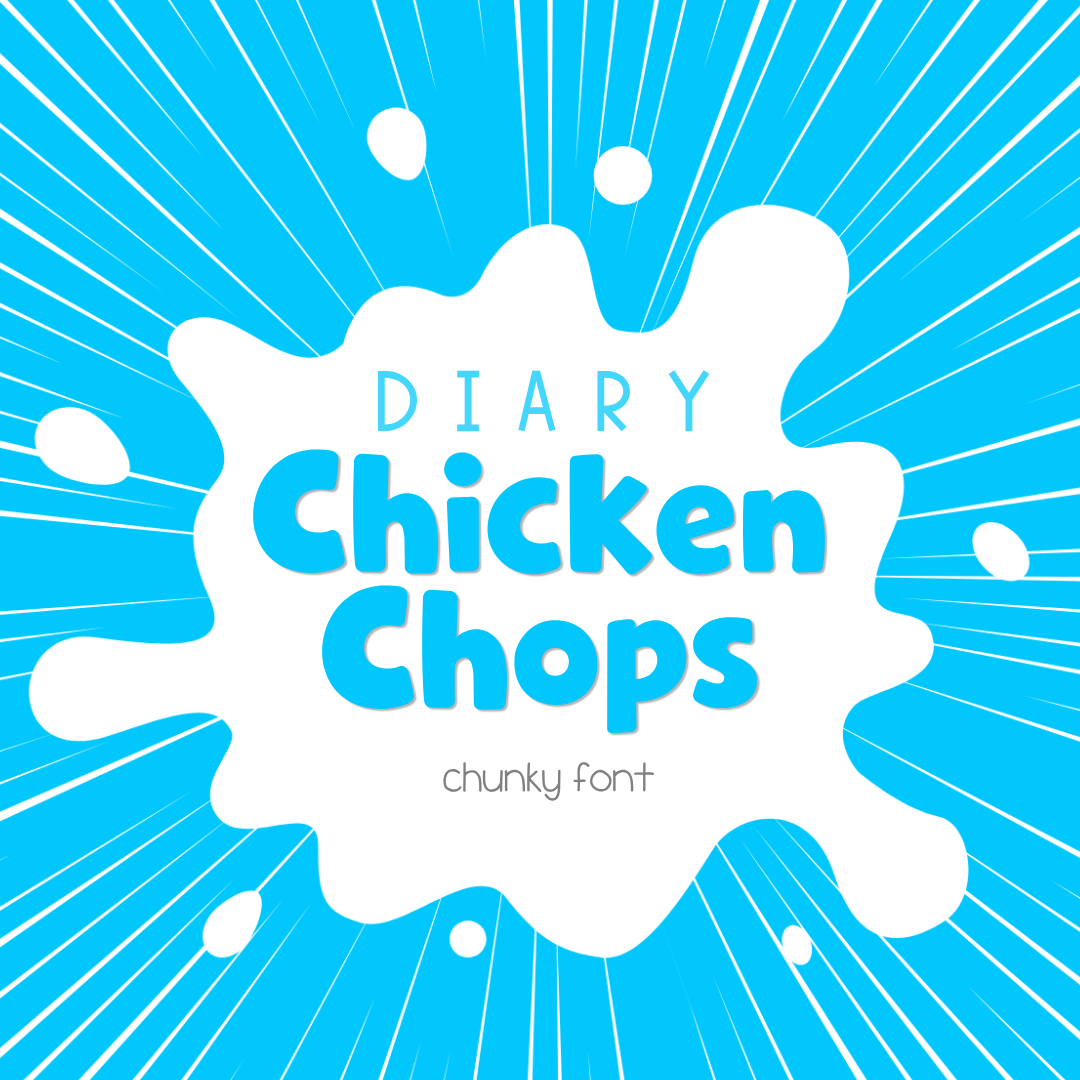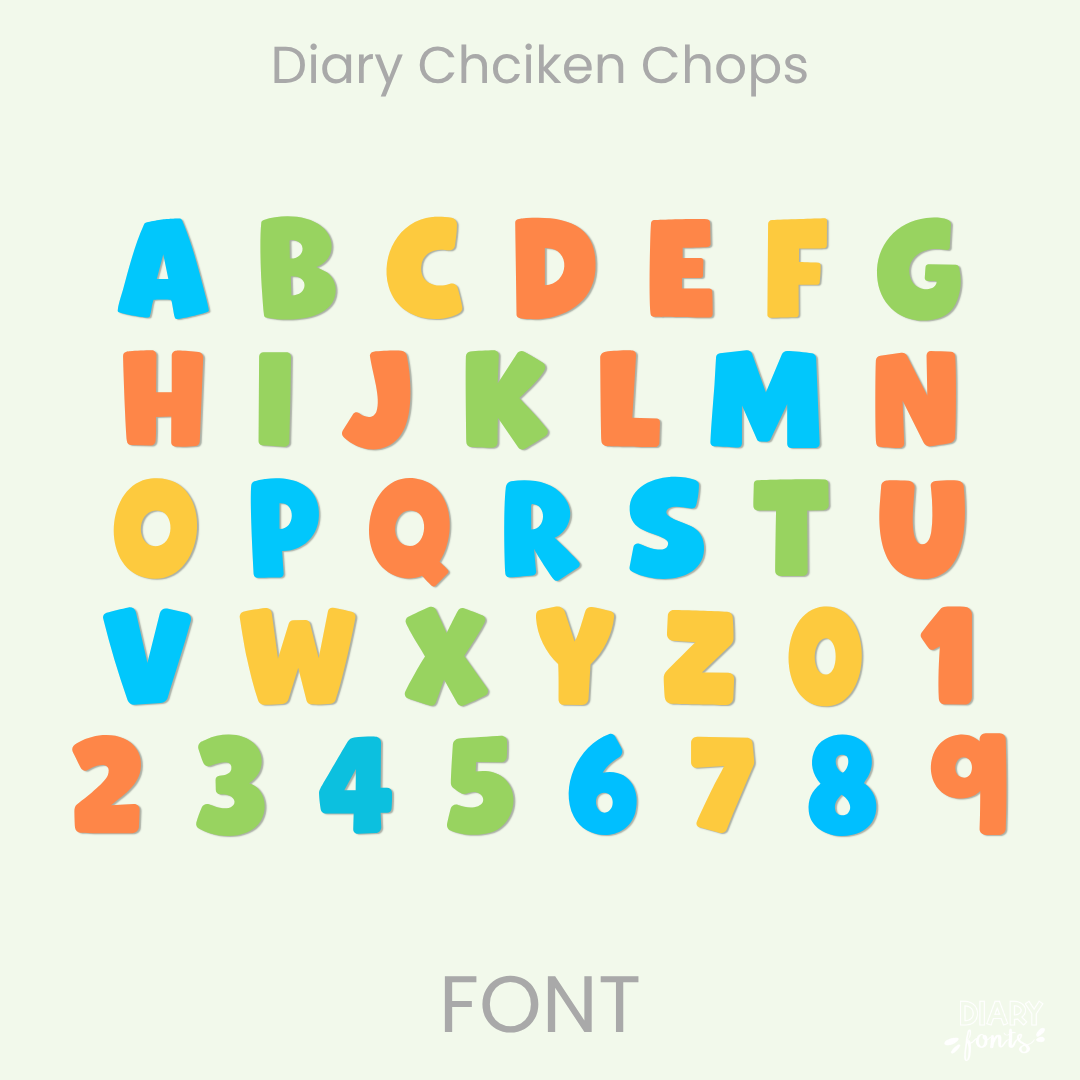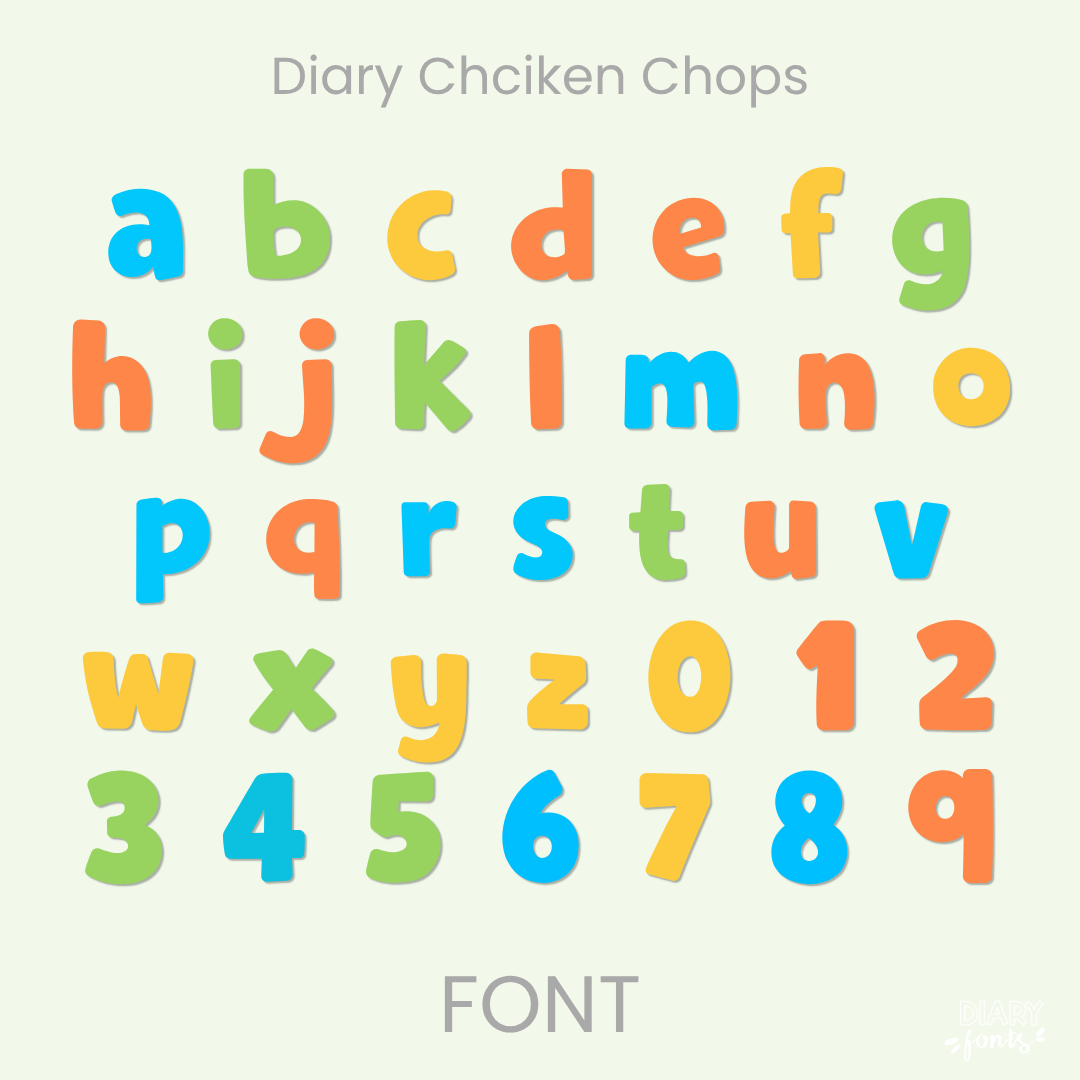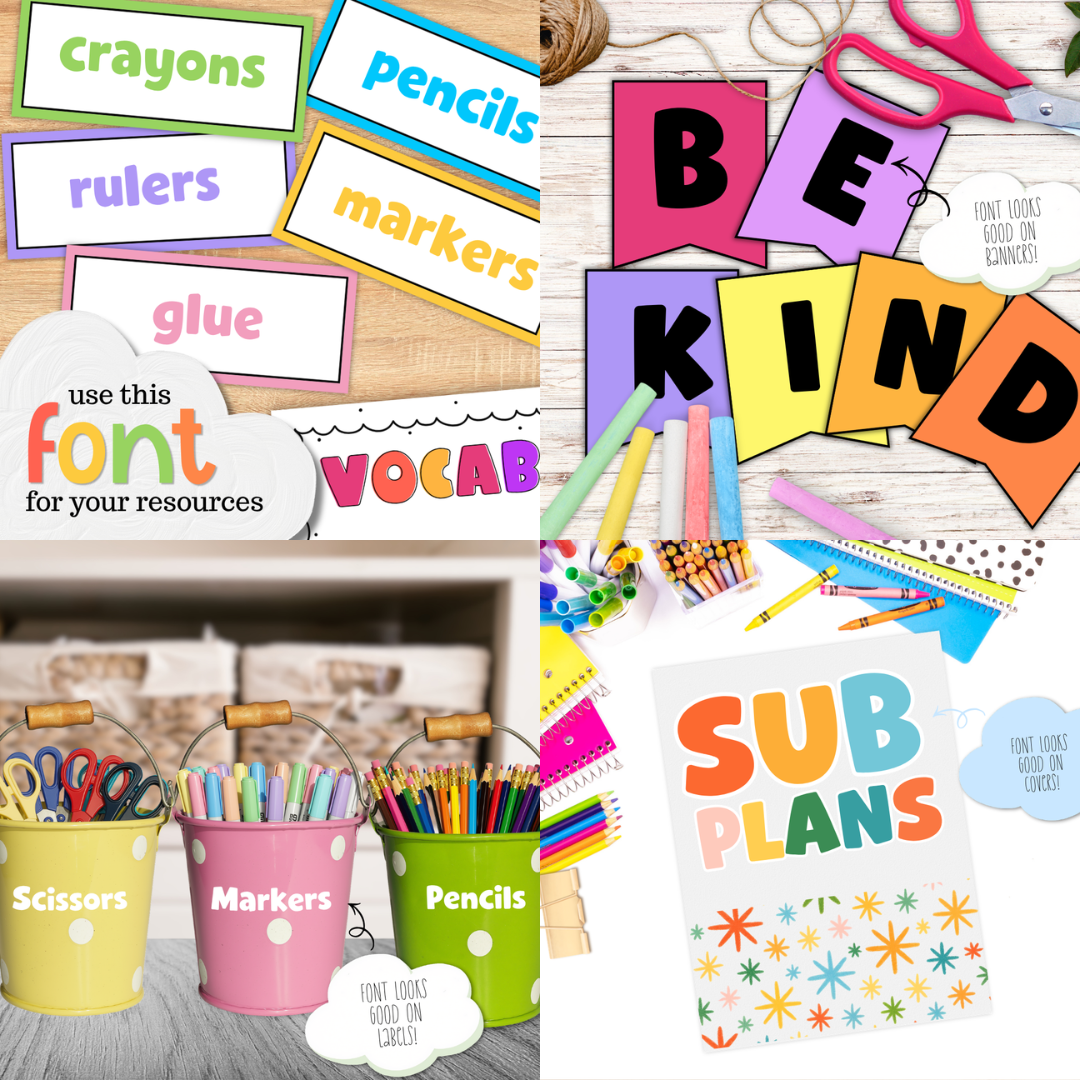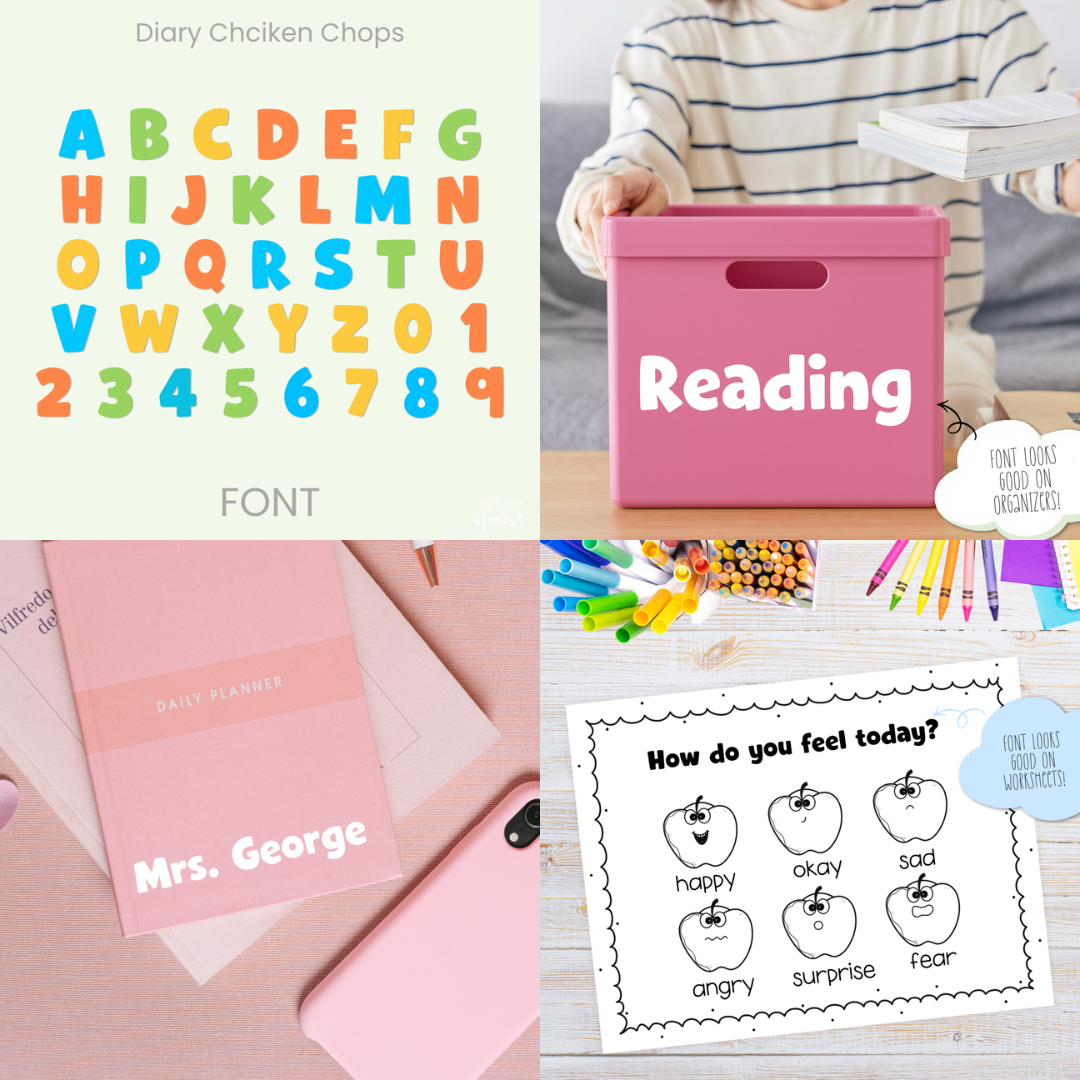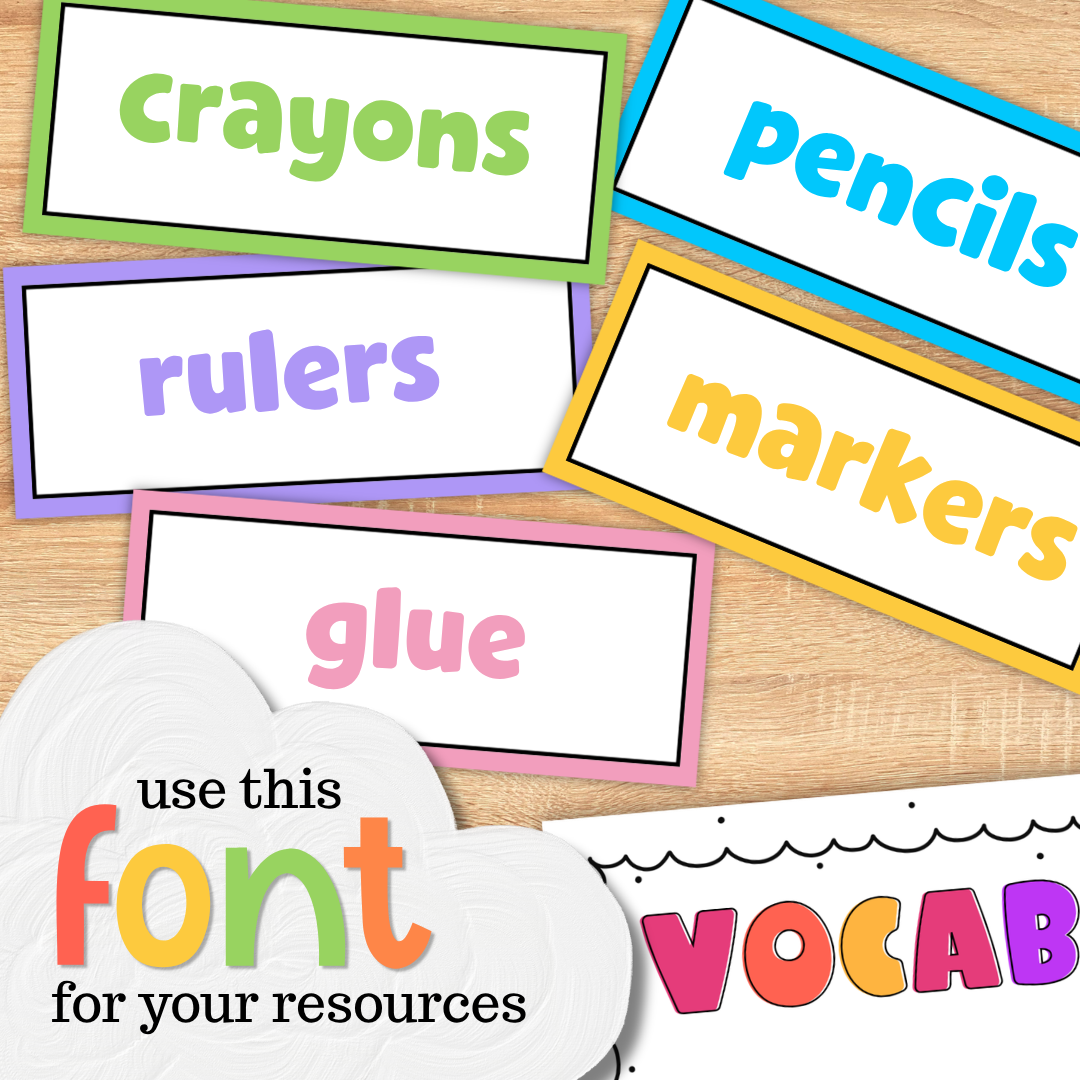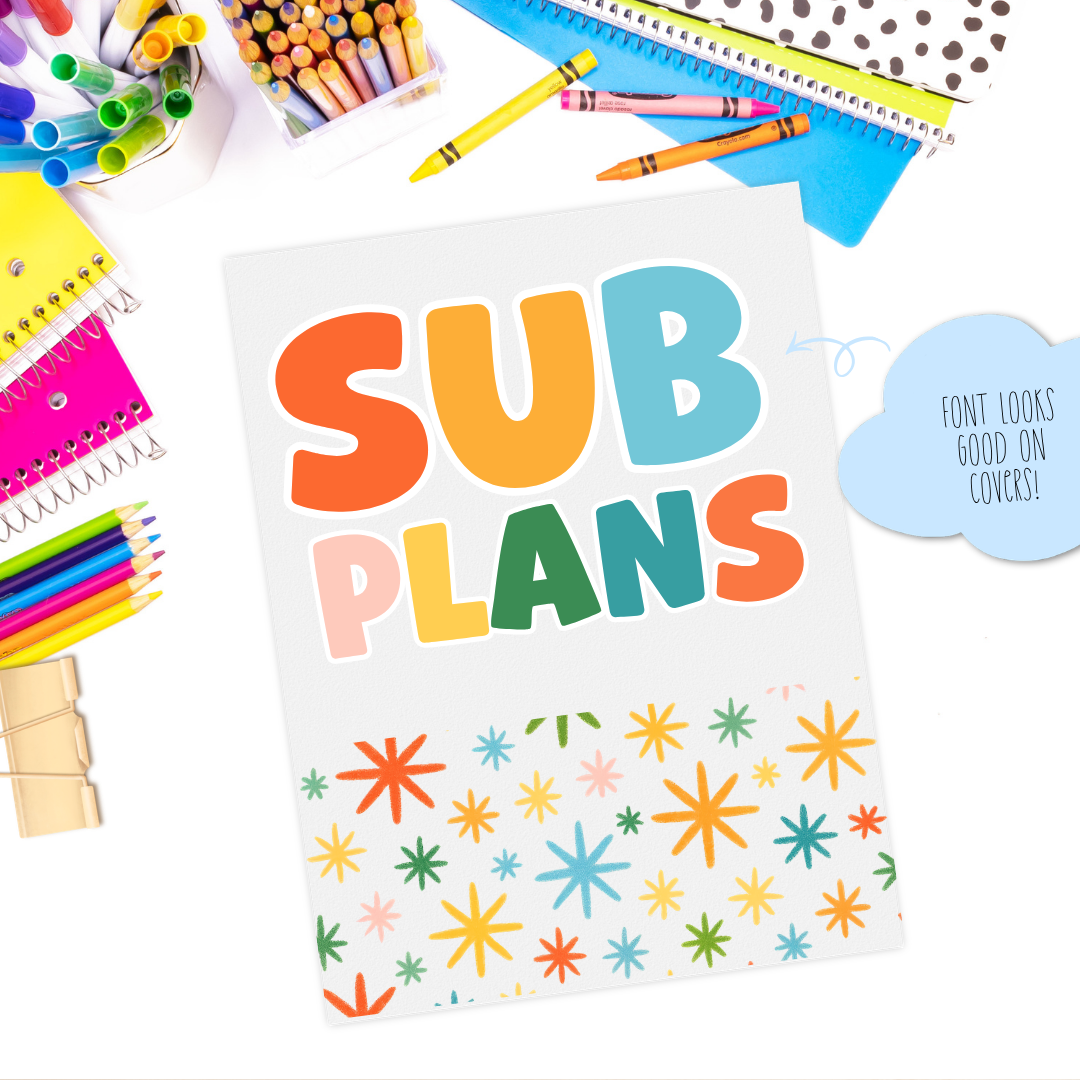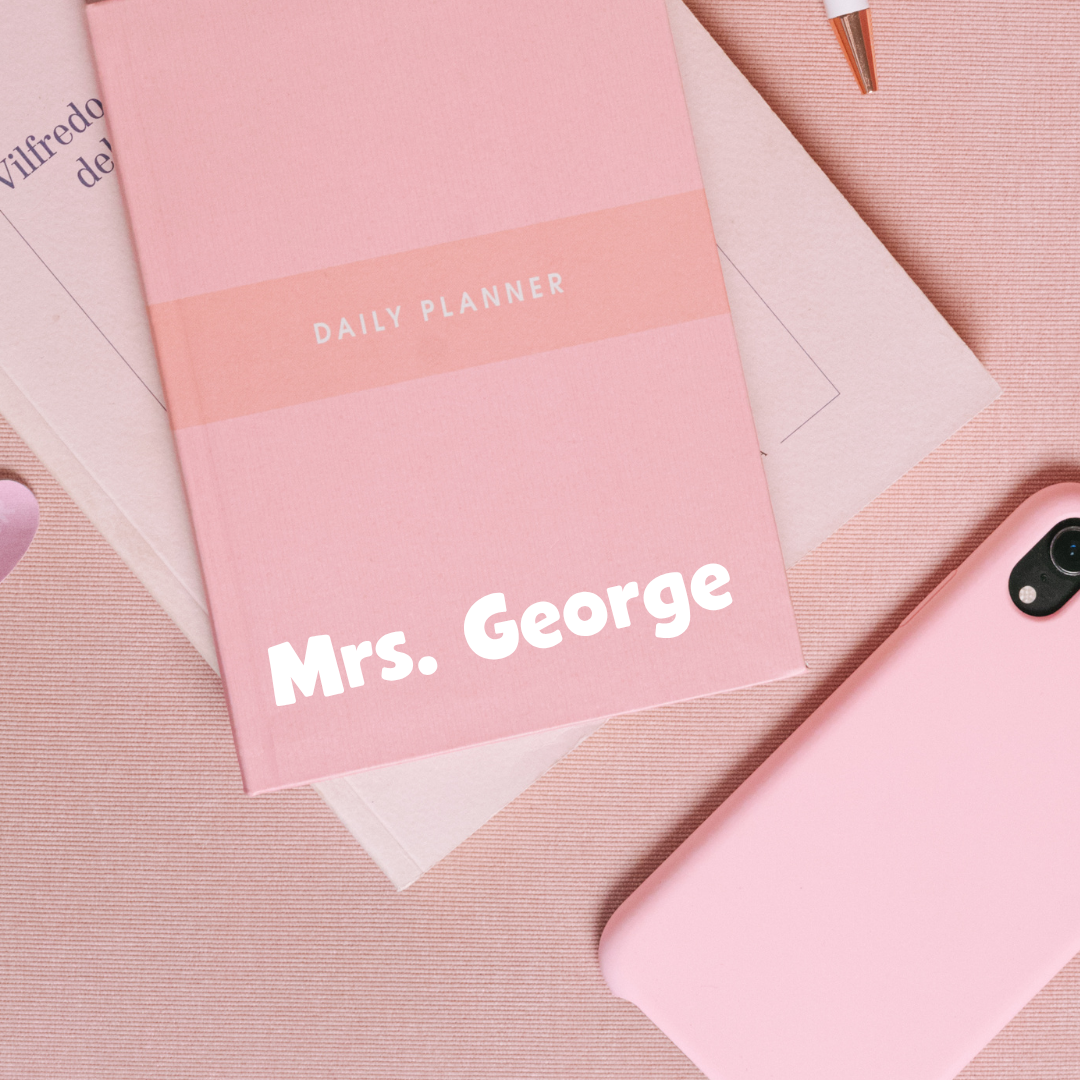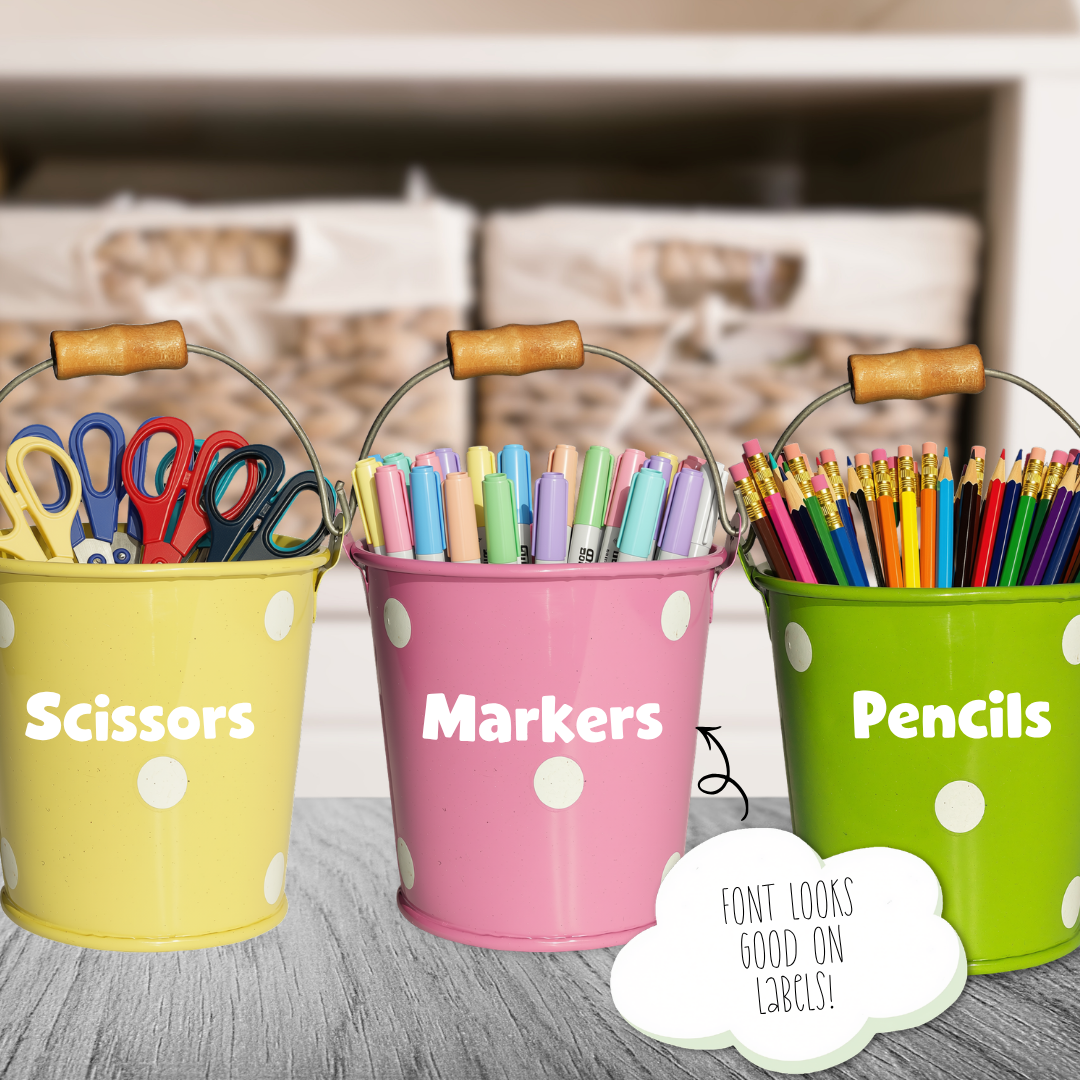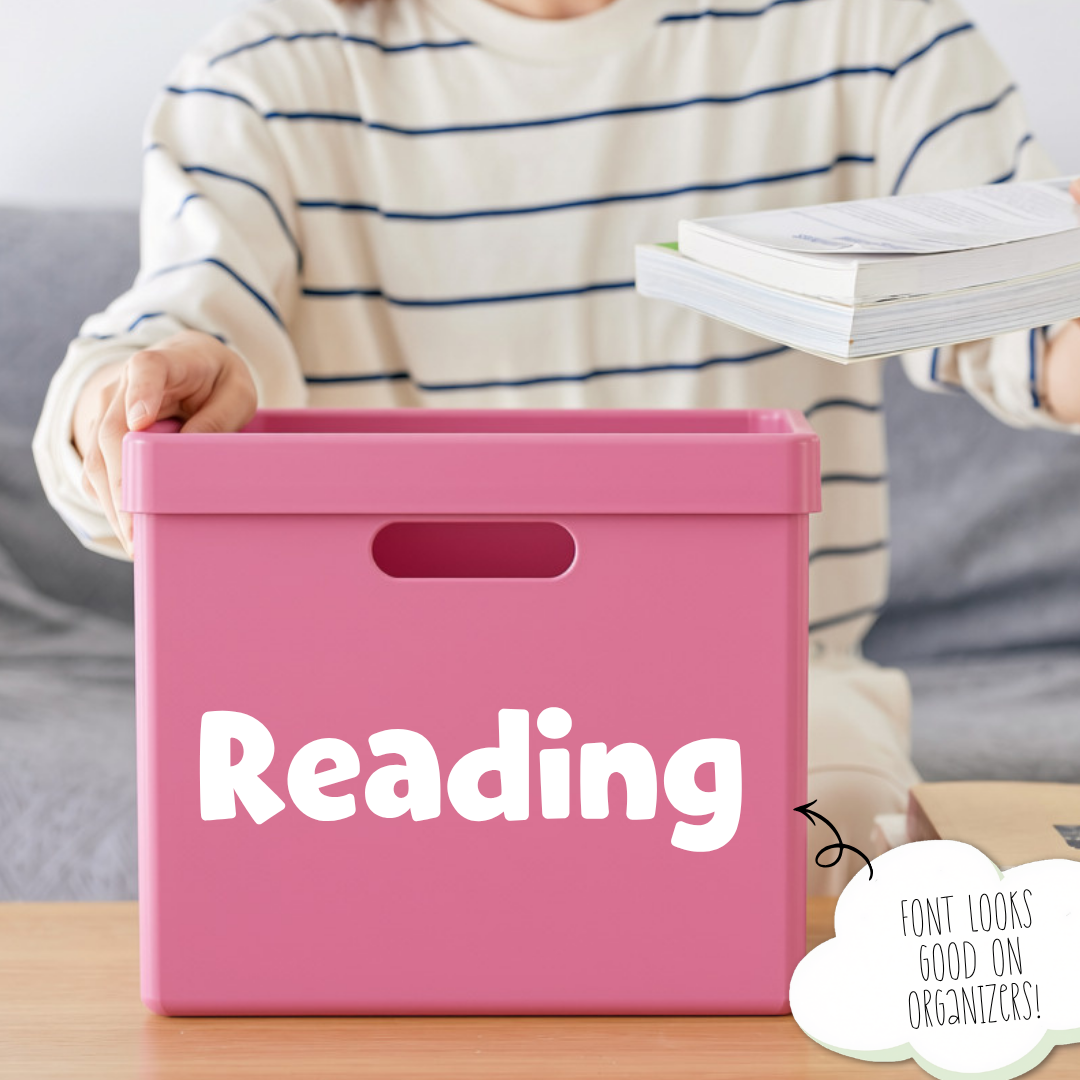
If you’ve been searching for a heavy-weight print font that has all the organic, hand-drawn charm of a friendly marker style while keeping your layout looking incredibly structured, Diary Chicken Chops is about to become your new absolute favorite design asset. This delightful typeface features thick, solid, and beautifully rounded letterforms that sit perfectly level along the baseline. Because these bold hand-drawn characters are nice and neat with generous breathing room, they maximize readability from across the room and eliminate background visual noise—giving you an exceptionally clear display choice that your sweet students can read with absolute ease.
It is an absolute dream choice for crafting colorful vocabulary flashcards, classroom organization bucket labels, bulletin board banners, morning meeting slides, and striking teacher planner covers. Inside the download, you’ll get a full set of neat uppercase and lowercase bold letters, matching chunky numbers, and multi-accent marks for complete multilingual support. It drops right into Canva, MS Office, or Adobe on your desktop, and pairs beautifully with Procreate and GoodNotes on your iPad. Whether you’re prepping weekly activities for your own sweet classroom or designing a fresh new commercial-use product line for your online teacher shop, this versatile thick display font adds a touch of confident, warm style to your toolkit.